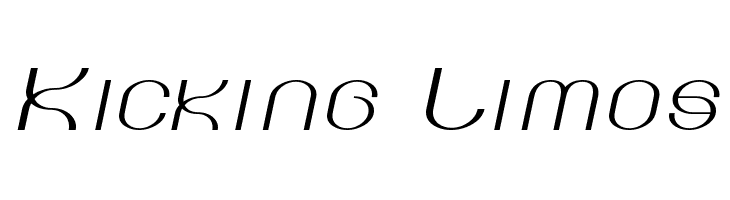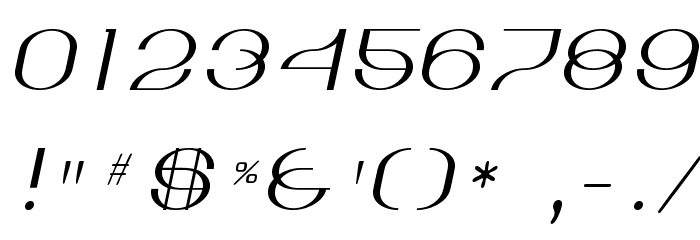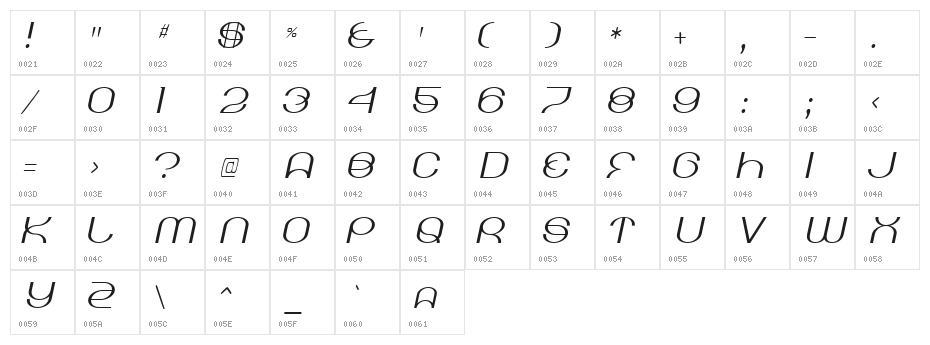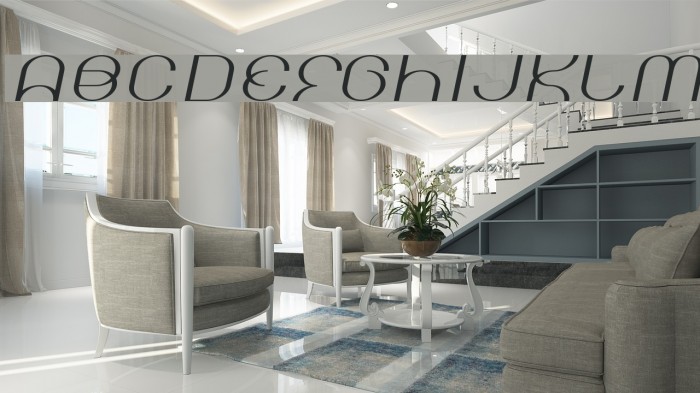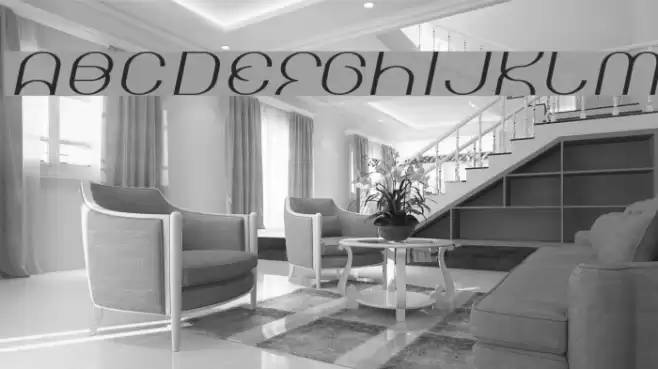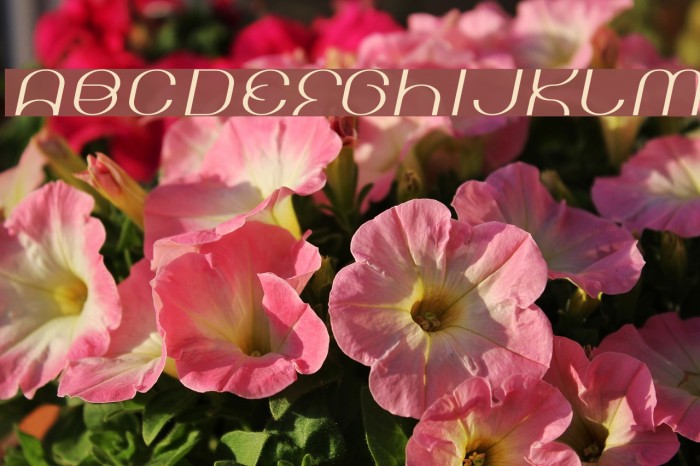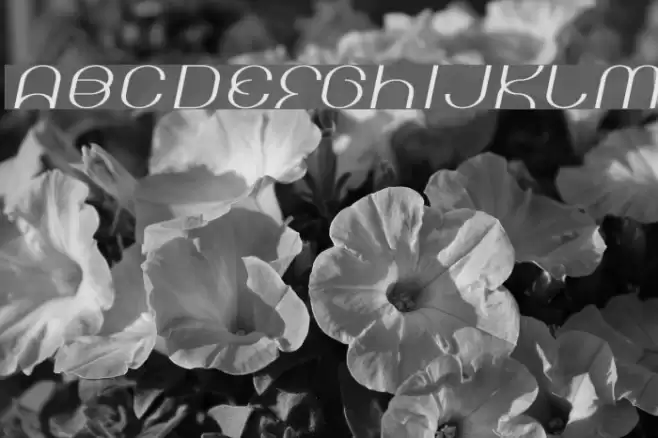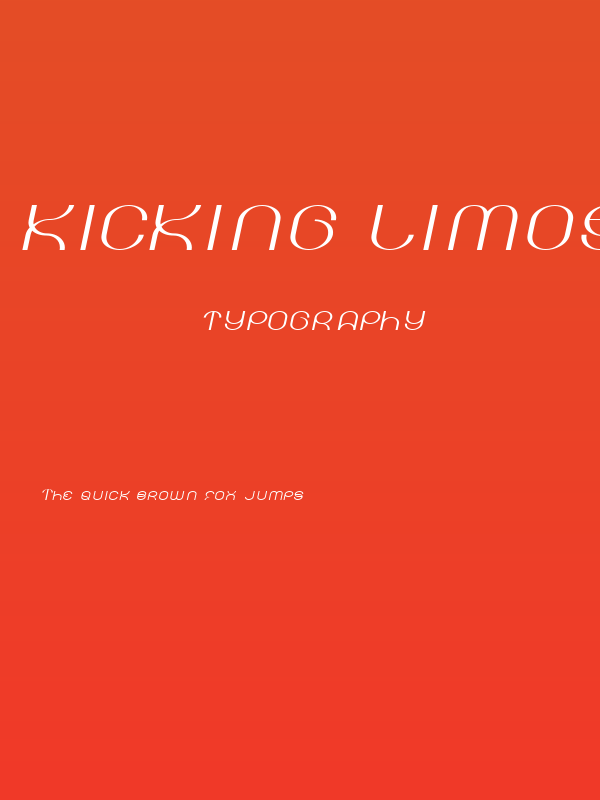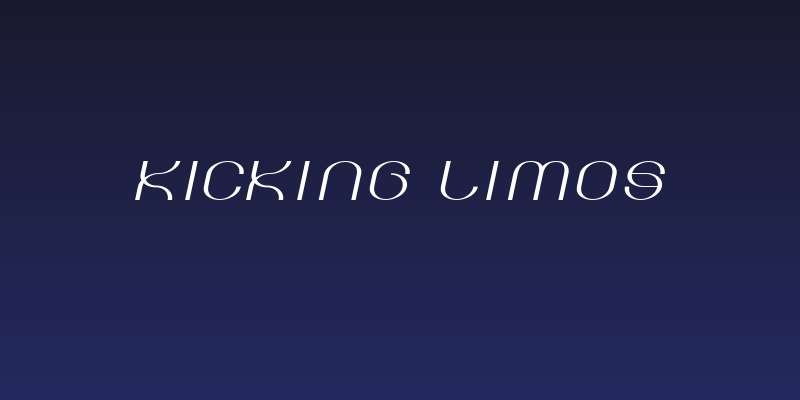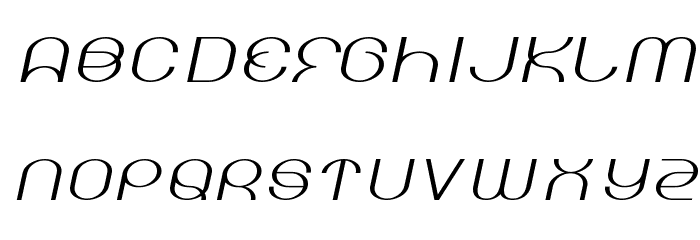
Kicking Limos Font
Kicking Limos Description
This font features a unique and modern design with a distinct slant, giving it a dynamic and forward-moving appearance. The characters are crafted with smooth, flowing lines that create a sense of motion and elegance. The uppercase and lowercase letters maintain a consistent style, with rounded edges and a slight italicization that adds to the overall sleekness. The numerals and special characters are designed to match the letterforms, ensuring a cohesive look across all text. This font's contemporary style makes it suitable for a variety of creative applications.
| Proposed Projects | Ideal for branding, advertising, and editorial design projects that require a modern and stylish touch. |